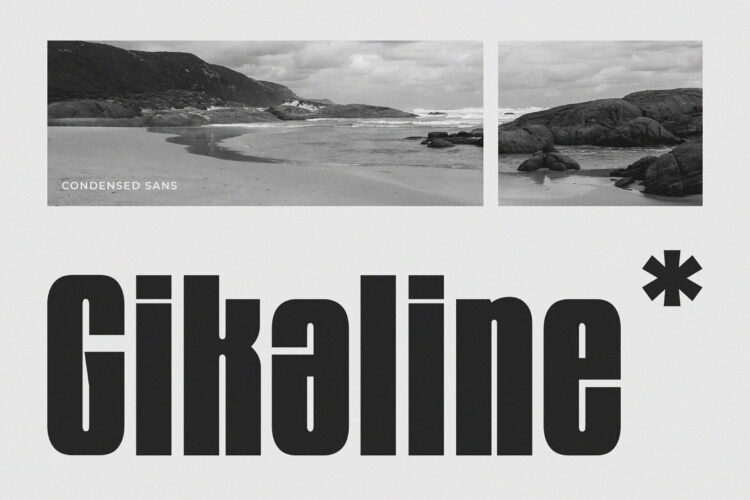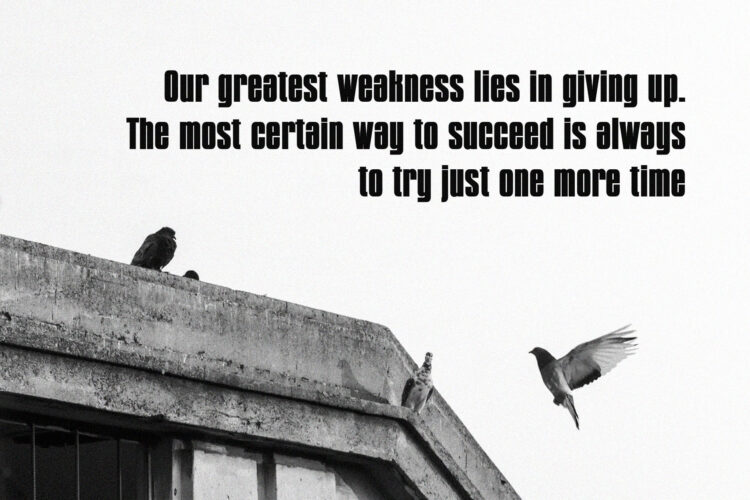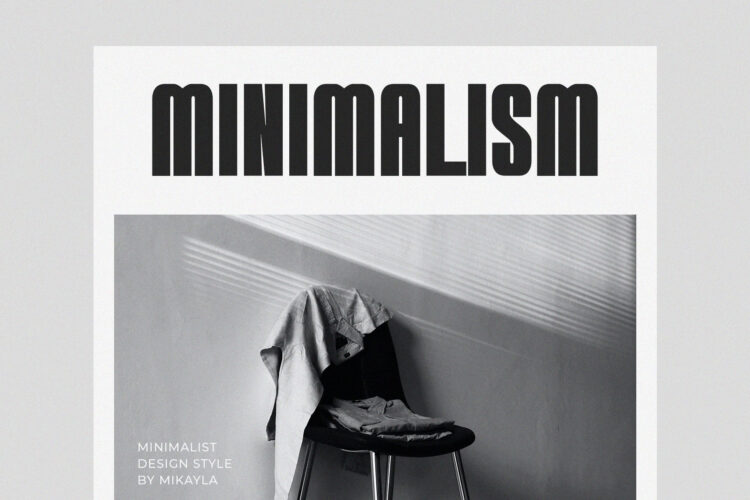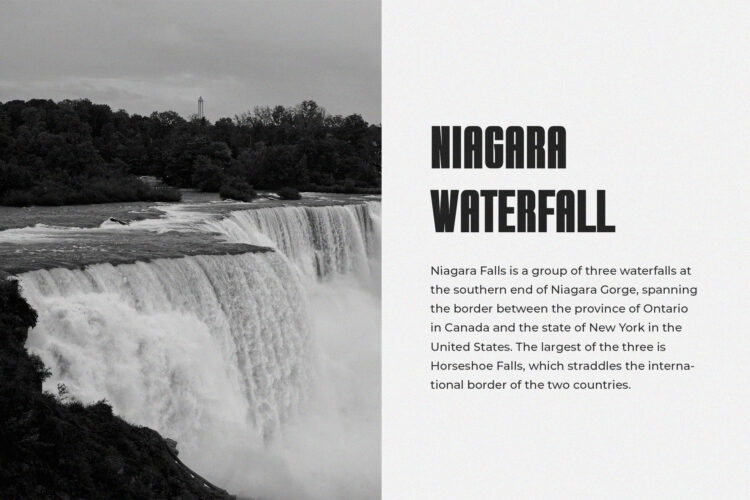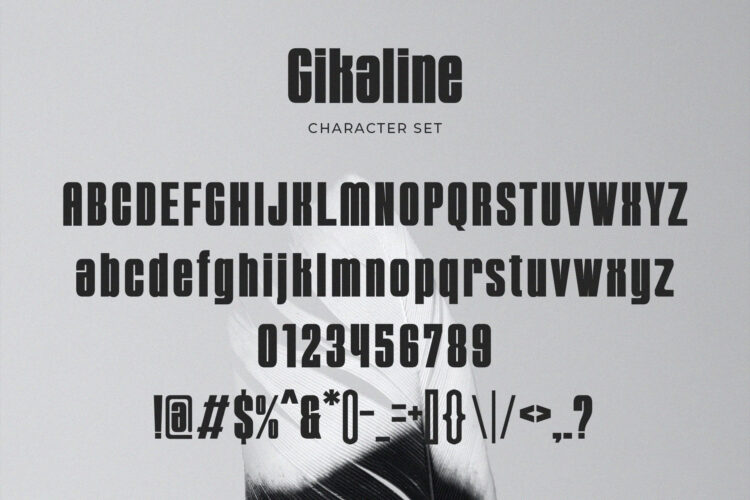
Introducing our new Gikaline, modern sans serif font with elegant style this is perfect for branding, logos, invitation, magazines, product packaging and more.
Gikaline – Bold Condensed Sans Serif